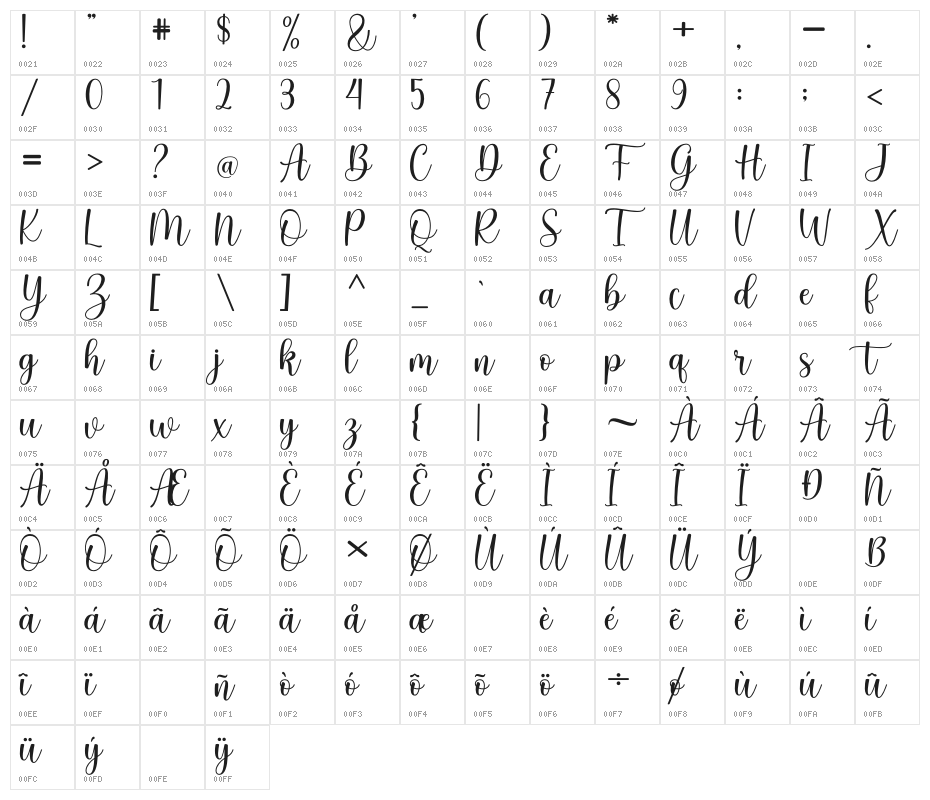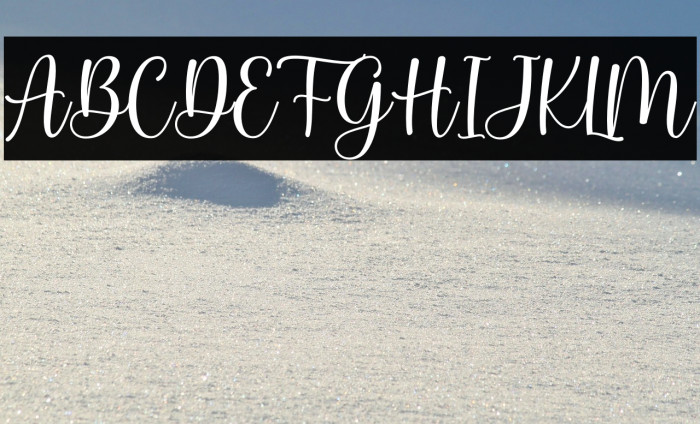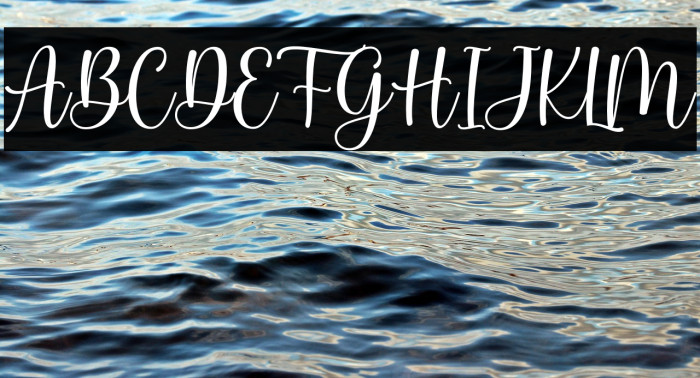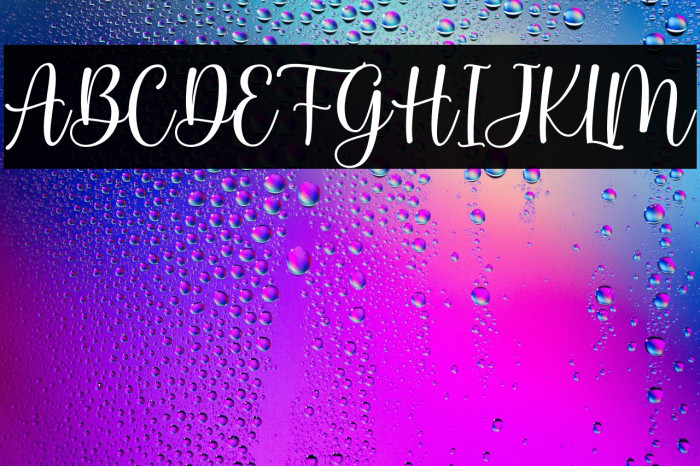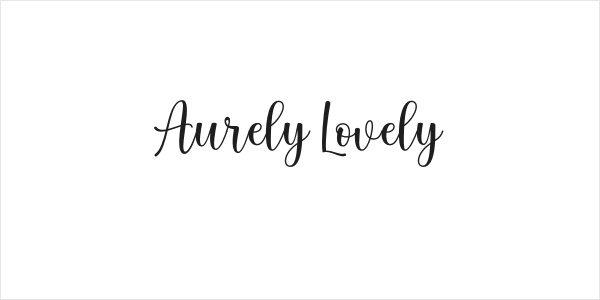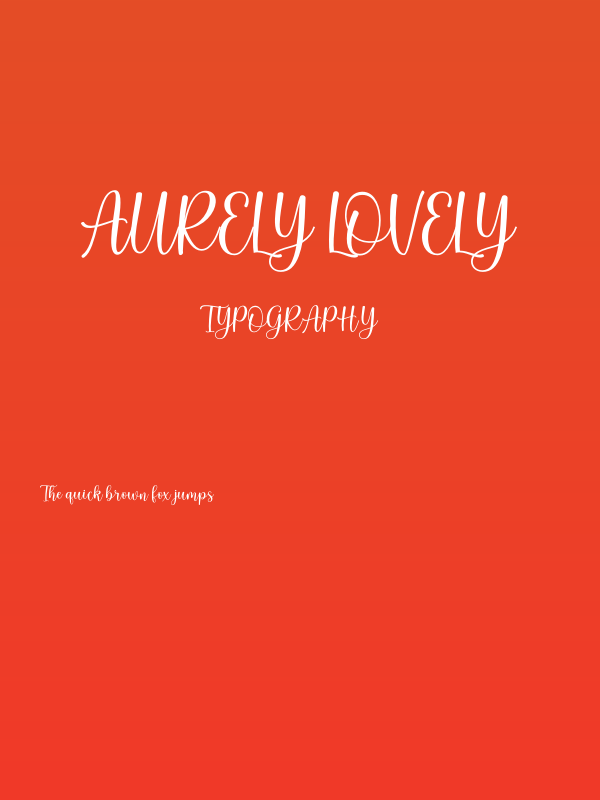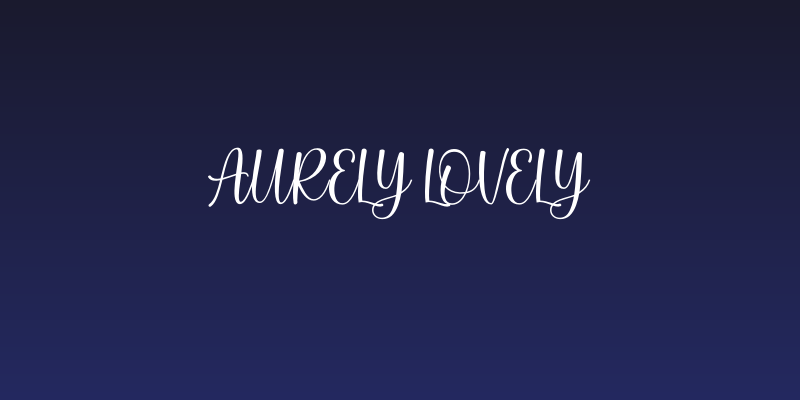
Aurely Lovely Font
Aurely Lovely Description
This font features a charming and elegant script style with a flowing, handwritten appearance. The uppercase letters are tall and graceful, while the lowercase letters have a playful, cursive quality. The strokes are smooth and fluid, with a consistent thickness that adds to the font's readability. The numbers and special characters maintain the same whimsical style, making it versatile for various design needs. The overall look is both sophisticated and approachable, perfect for adding a personal touch to any project.
| Proposed Projects | Ideal for wedding invitations, greeting cards, branding, and social media graphics. |